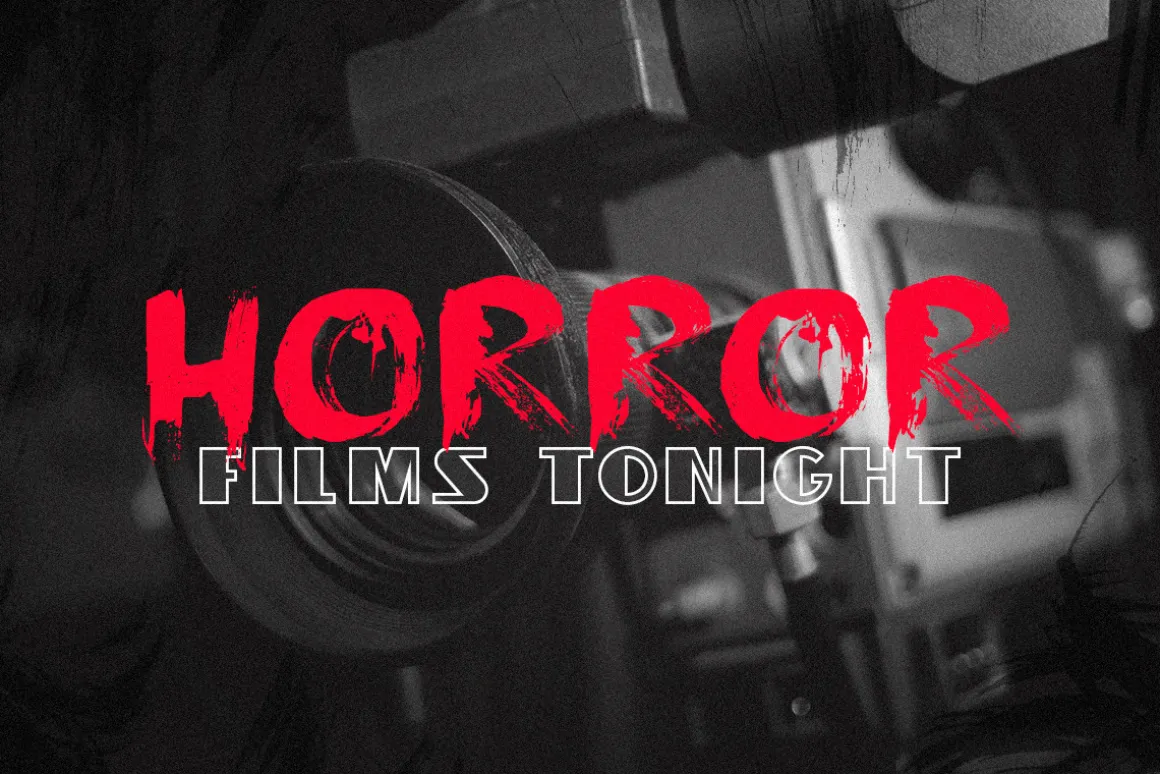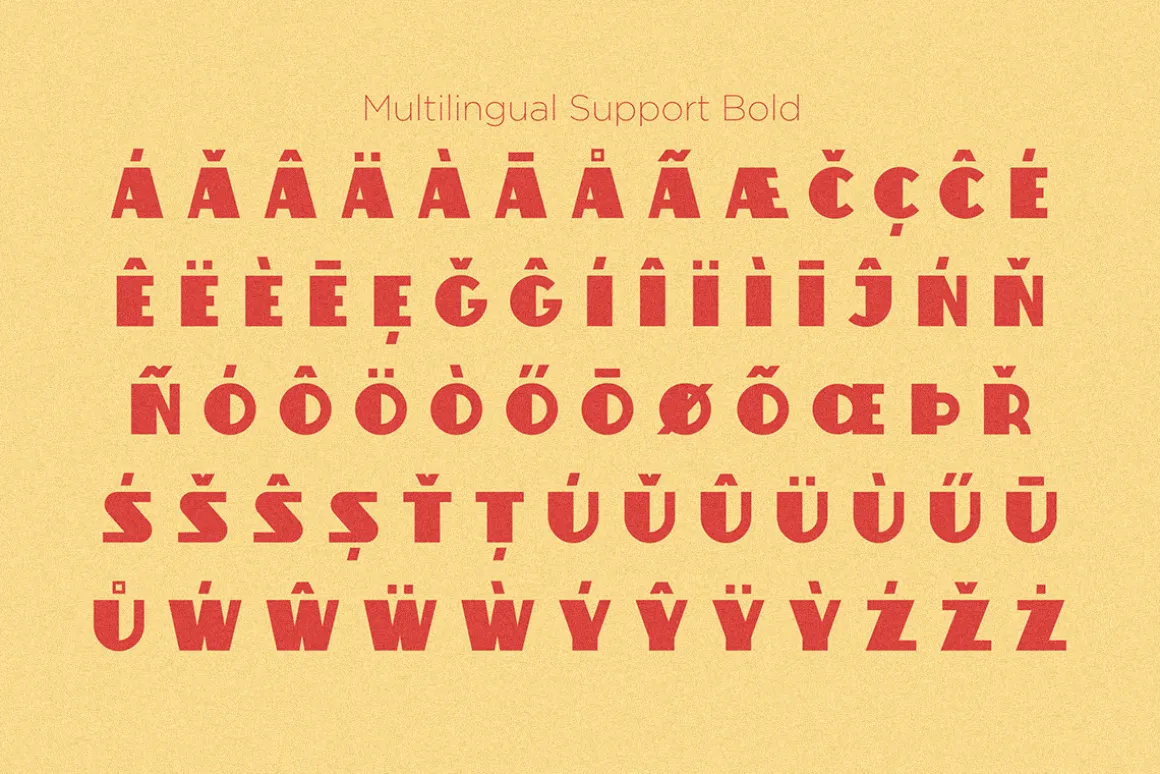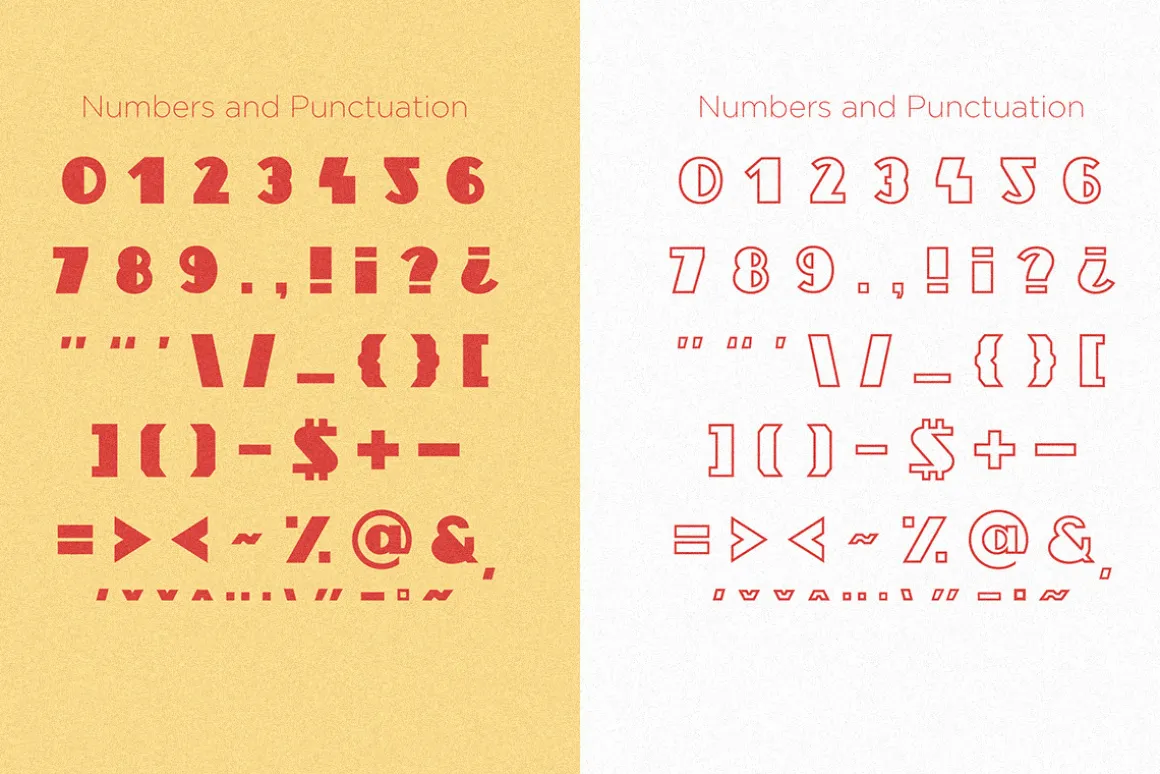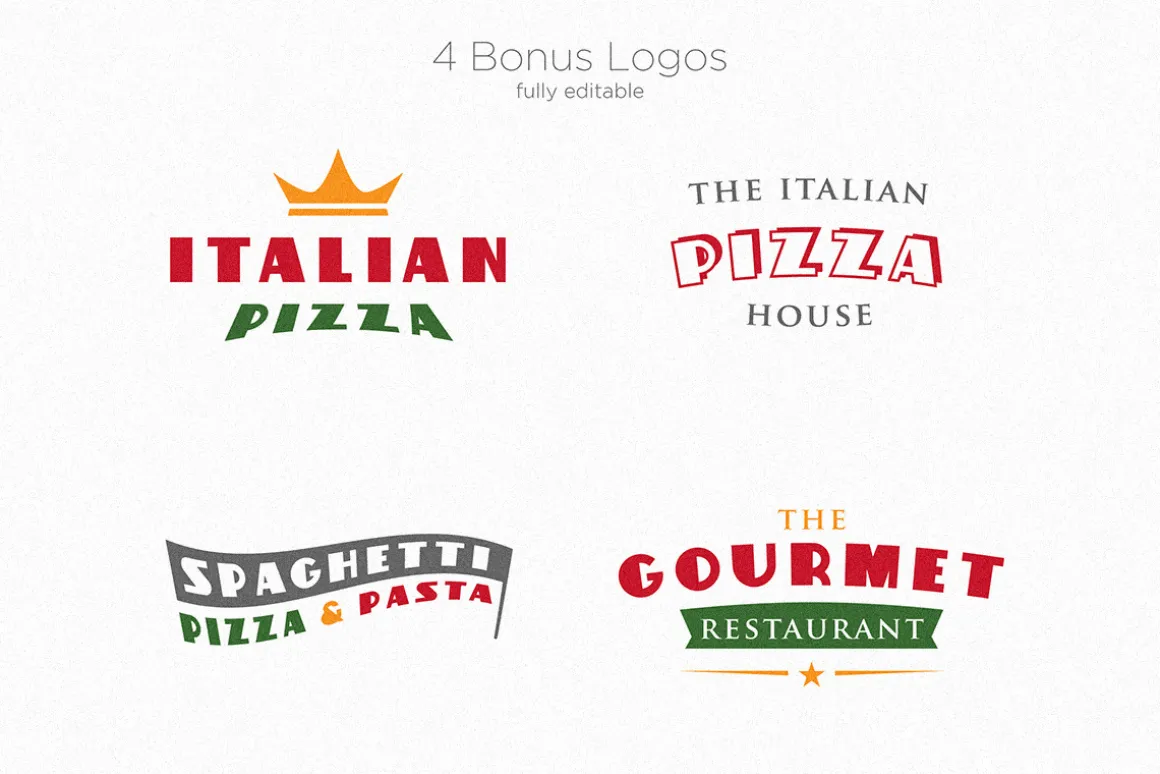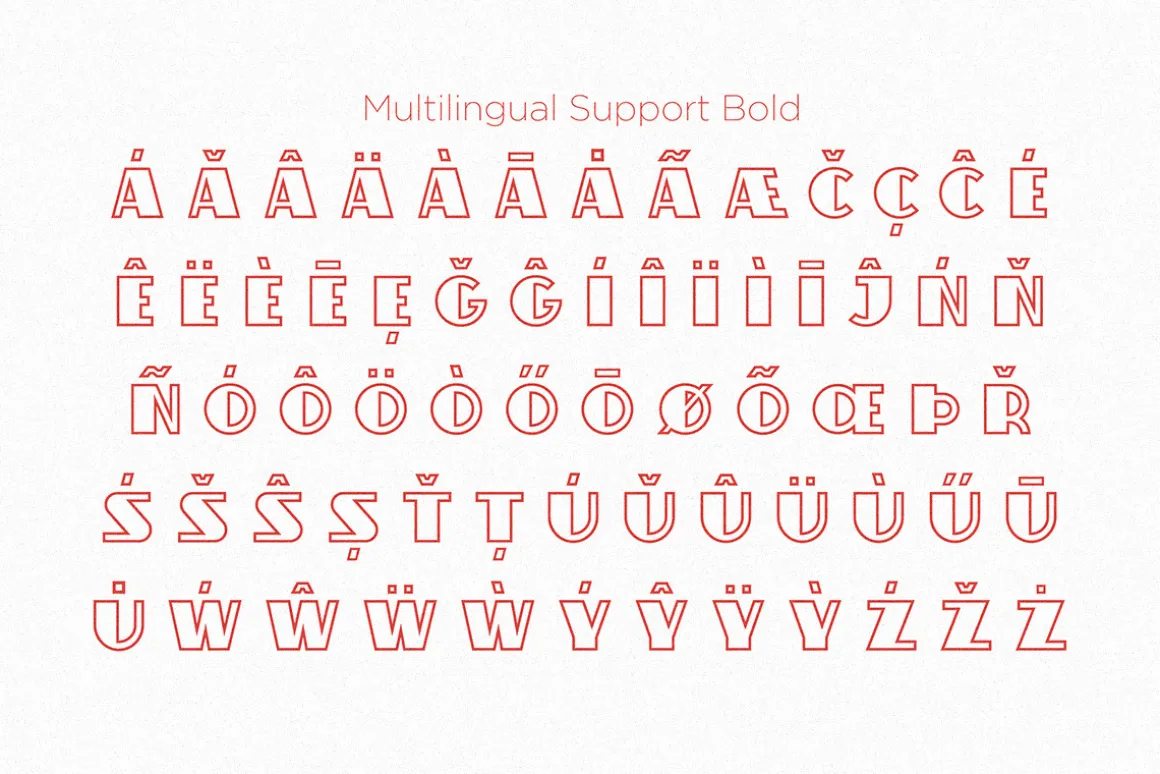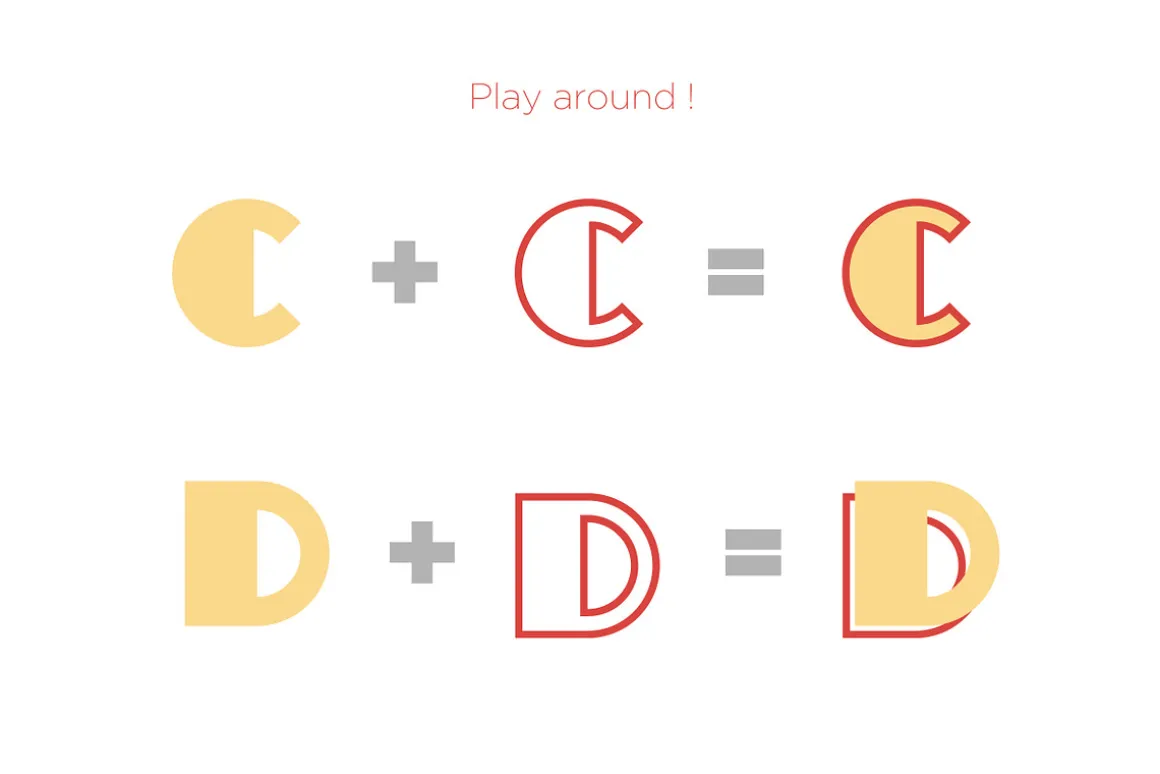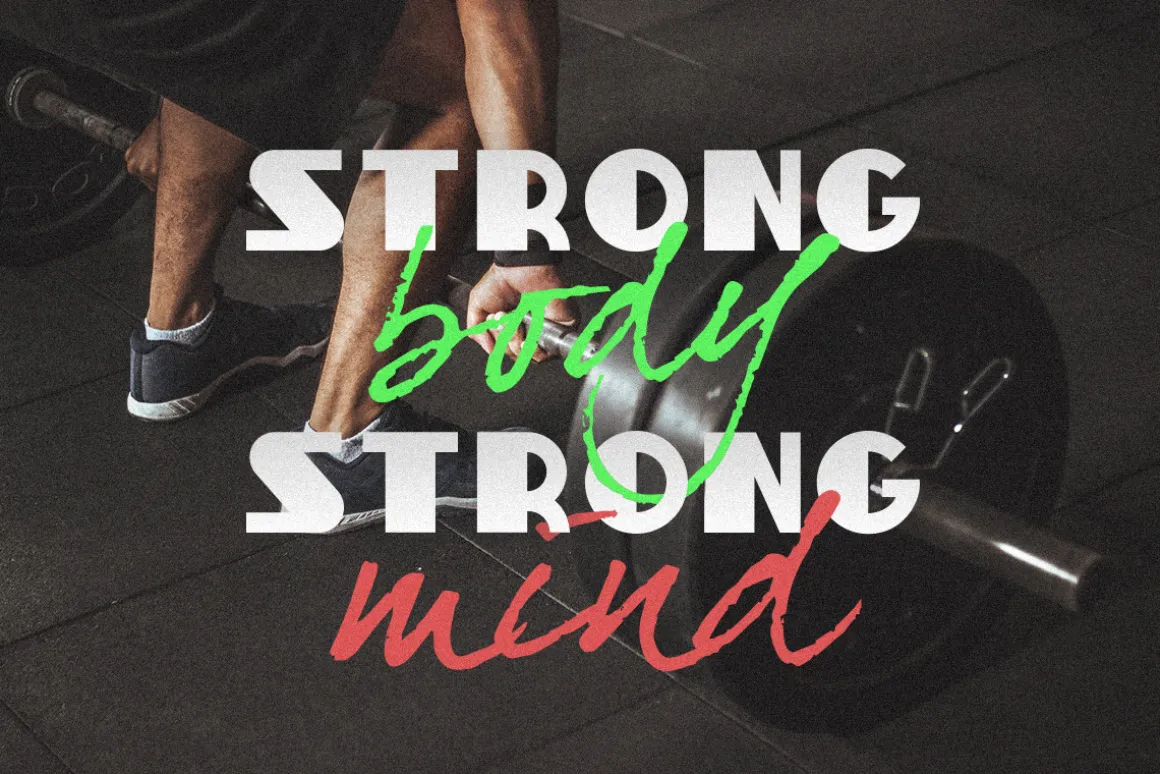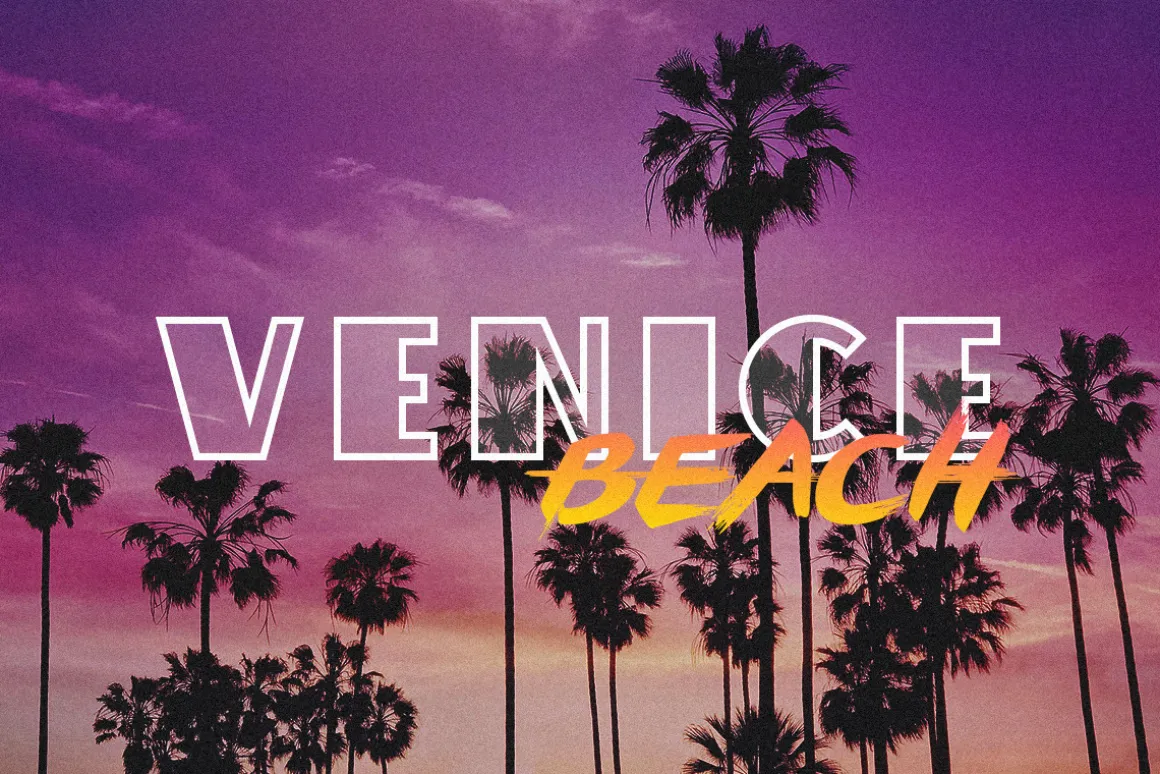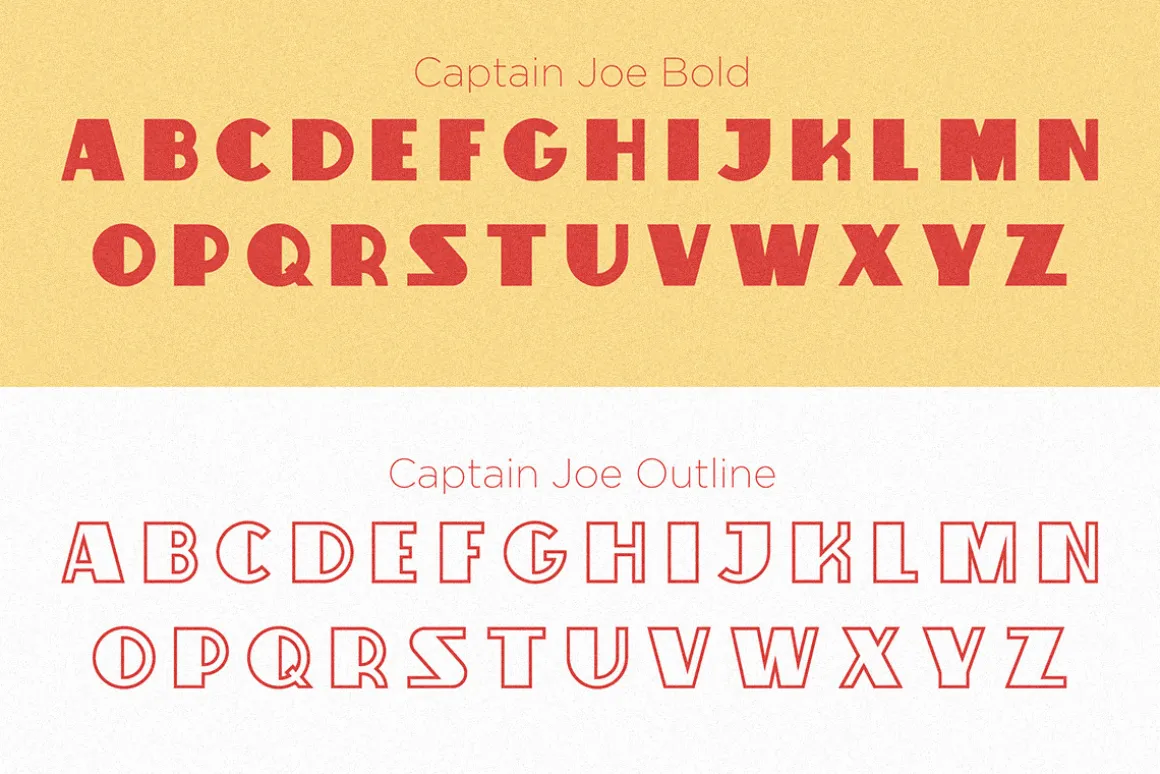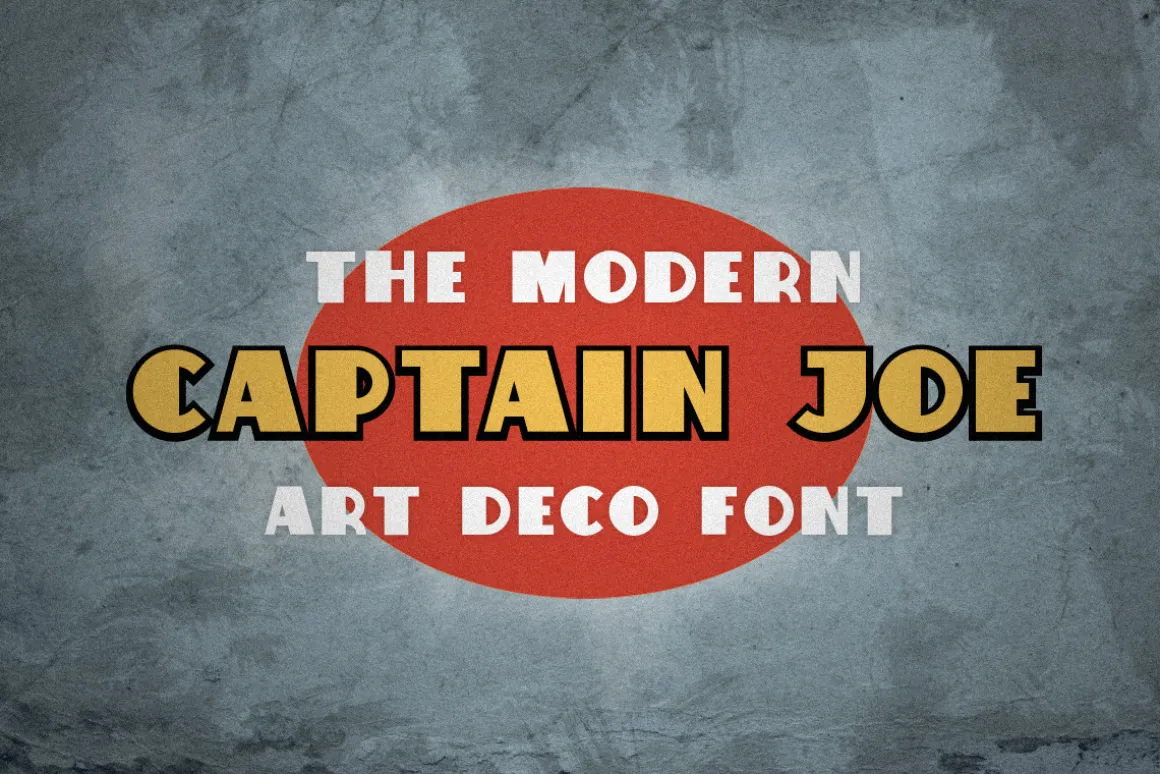
Captain Joe is a font that comes in 2 different styles: Bold and Outline. What is nice is that you can overlap the two styles and you will get the third one.
Diacritics are also available for Western, Central and South European Languages.